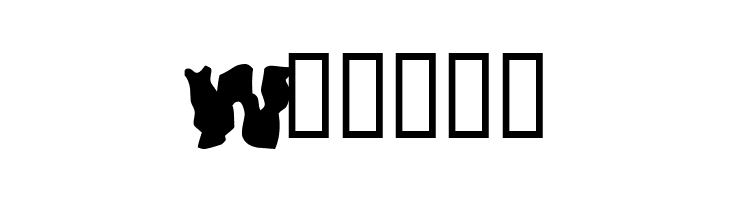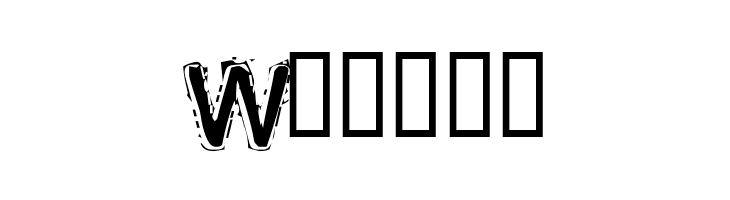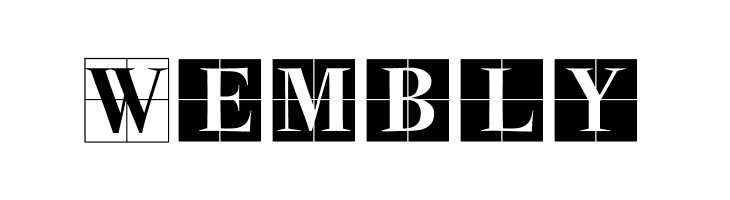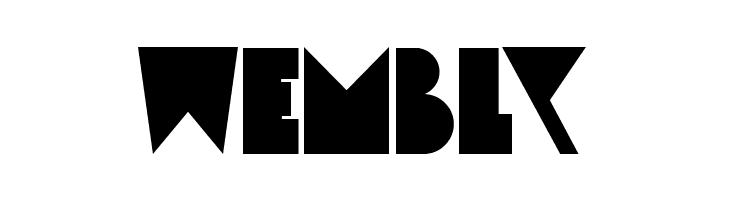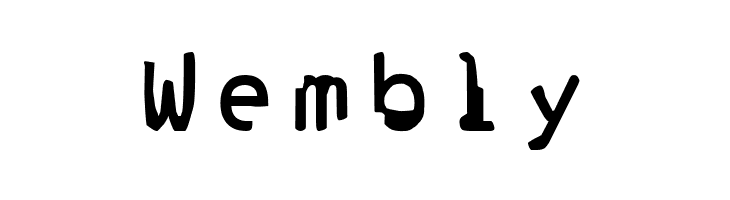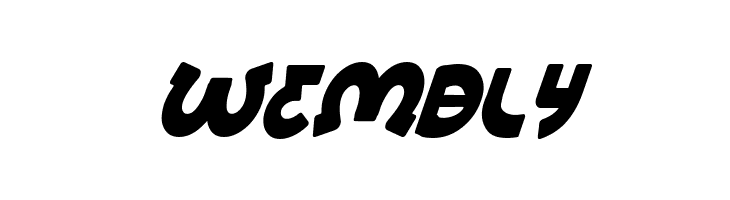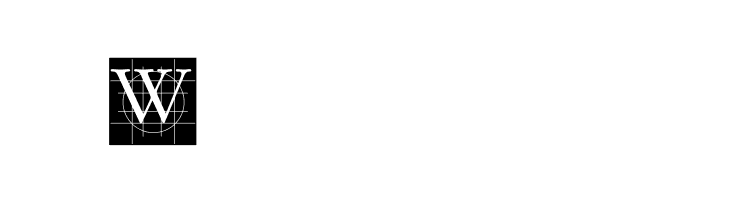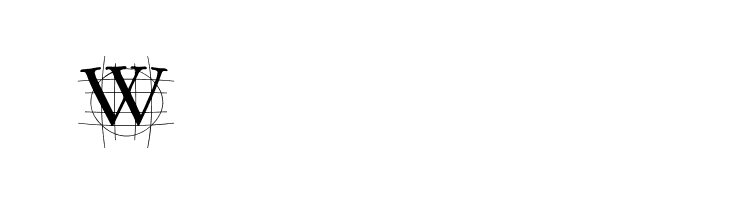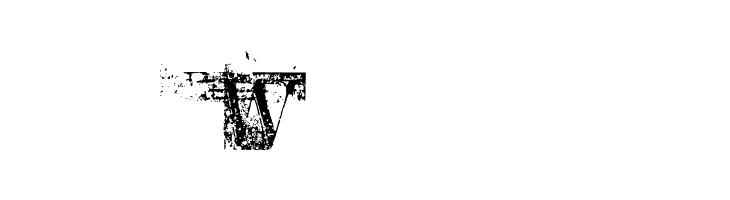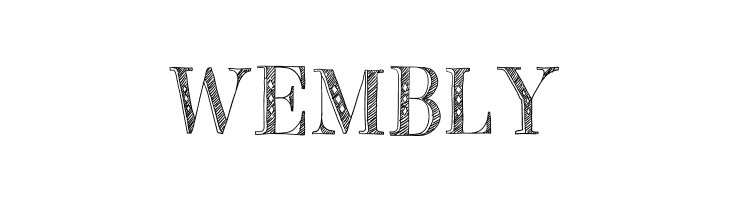
A bold, rugged font with jagged edges and a distressed appearance, ideal for impactful designs.
A bold, distressed font with a grunge effect, perfect for dynamic and edgy designs.
A bold, geometric font with a retro disco vibe.
An ornate and decorative font with high contrast and intricate design.
A playful, distorted font with quirky, energetic characters.
A bold, decorative font with thick strokes and ornate detailing.
A bold, condensed, and italicized font with a dynamic and strong presence.
A geometric and architectural font with a blueprint aesthetic, featuring only uppercase letters.
An artistic, sketch-like font with overlapping lines and curves.
A bold, geometric font with a classic yet modern Hollywood-inspired style.
A bold, sketch-like font with a hand-drawn, textured appearance.
A distressed, grunge-style font with a bold, weathered appearance.
A decorative, sketch-like font with bold outlines and intricate hatching.
A bold and impactful font with thick strokes, ideal for headlines.
A bold, playful font with stylized, rounded characters and a whimsical design.
A playful, italic handwritten font with smooth strokes and moderate contrast.
A dynamic italic font with bold, slanted characters and a modern flair.
A bold, three-dimensional block font with a modern, geometric style.
A bold, jagged font with sharp edges and a dynamic, aggressive style.
A playful, handcrafted font with a rustic, homespun aesthetic.
A bold, textured font with a distressed, hand-drawn appearance.
A bold, stylized font with sharp edges and a three-dimensional effect.
A bold, geometric font with characters enclosed in circular shapes, offering a modern and industrial aesthetic.
A decorative and ornate font with uppercase letters in intricate square frames, exuding vintage elegance.